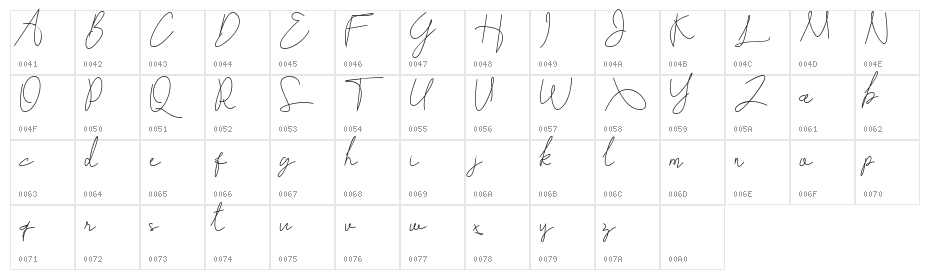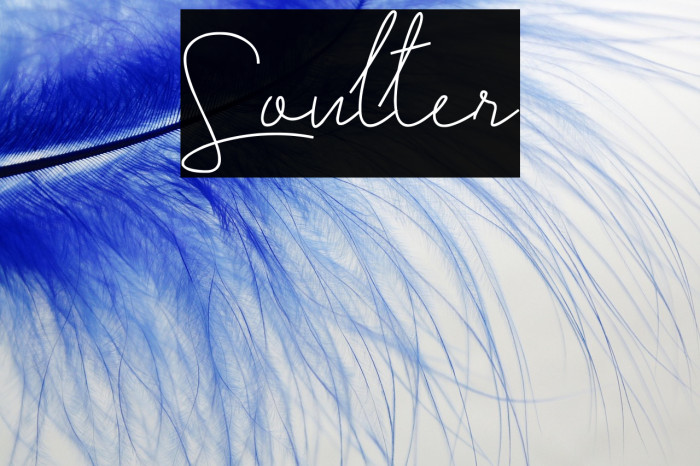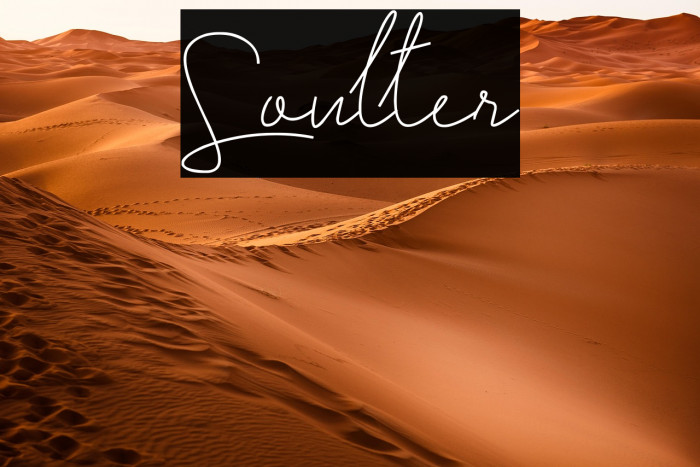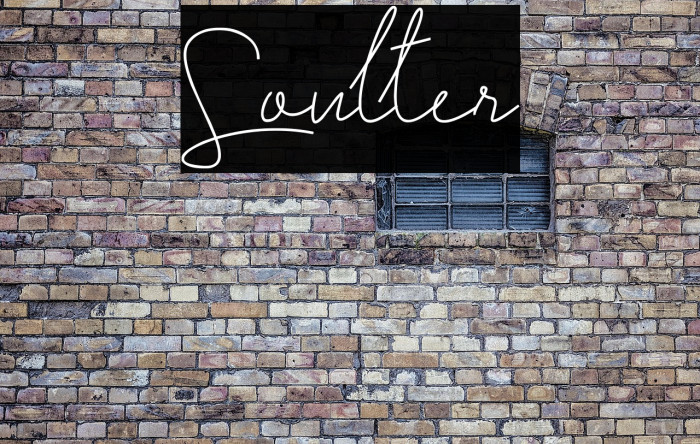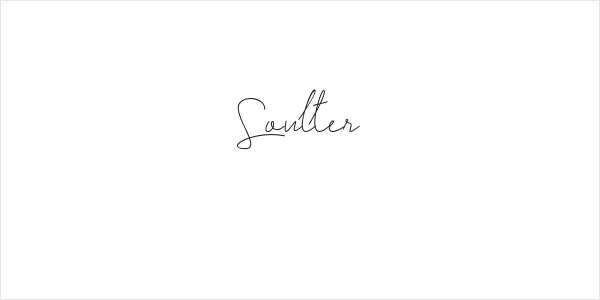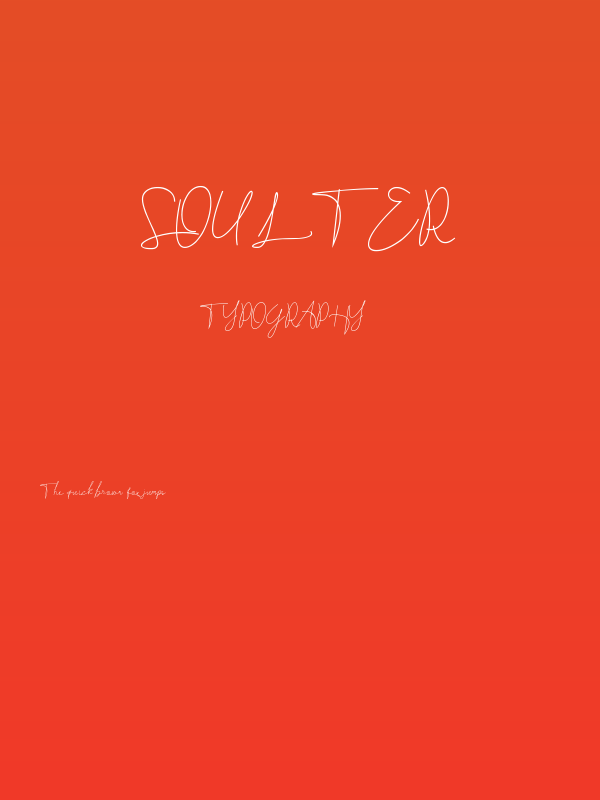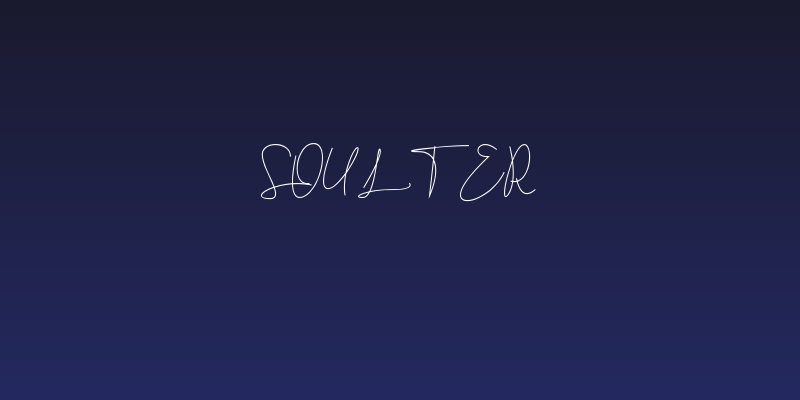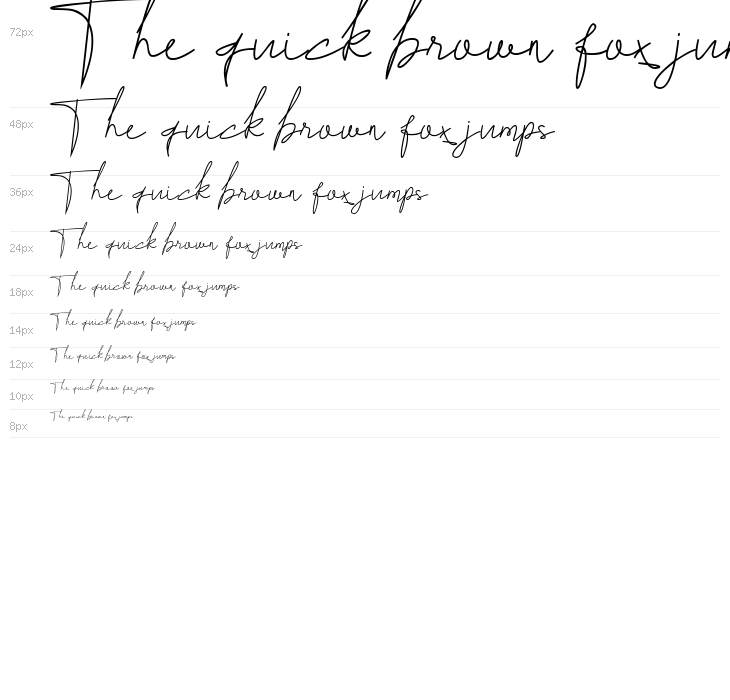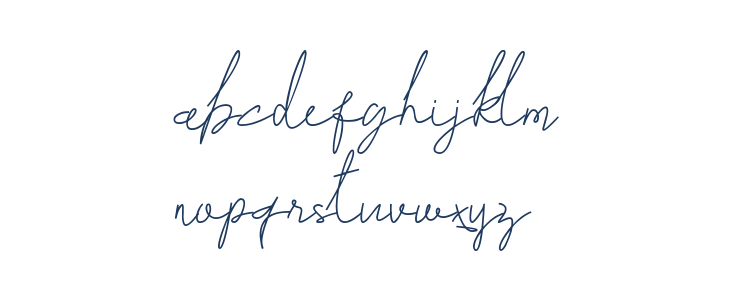
Soulter Font
Soulter Description
This font features a flowing, cursive style with a handwritten appearance, characterized by its elegant and fluid letterforms. The uppercase and lowercase letters are designed with a consistent slant, giving a sense of motion and grace. The strokes are thin and delicate, with a natural, organic feel that mimics the nuances of handwriting. The characters are connected in a seamless manner, enhancing the script's continuity and charm. This font is ideal for projects that require a personal touch, such as invitations, greeting cards, or branding materials that aim to convey sophistication and warmth.
| Overall Style | Elegant, Handwritten |
| Use Case | Logos, Invitations, Greeting cards |
| Proposed Projects | Ideal for wedding invitations, personal branding, greeting cards, and elegant packaging. |